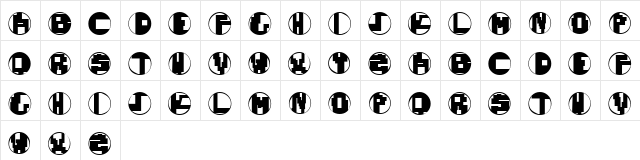
Mondo Techno Normal
Design Context for Mondo Techno Typeface
Mondo Techno channels digital-age aesthetics through its sharp, structured letterforms — ideal for brands that want to signal innovation.
Pro Tip: Try Mondo Techno with generous letter-spacing in UI labels and navigation — the geometric forms benefit from room to breathe.